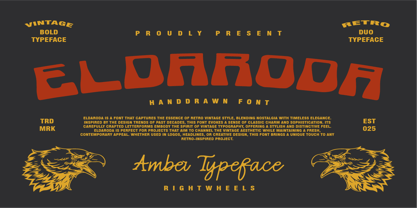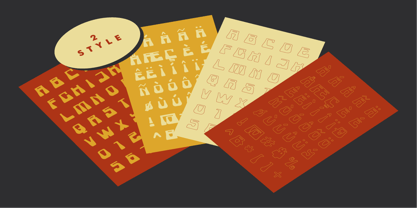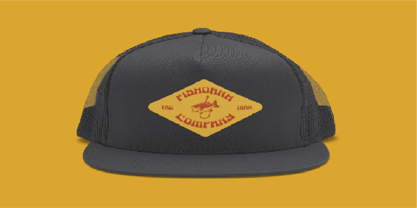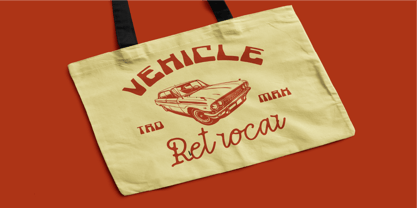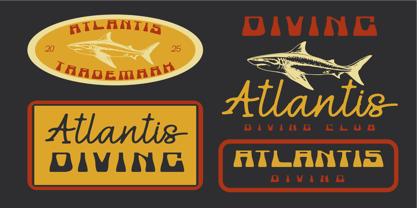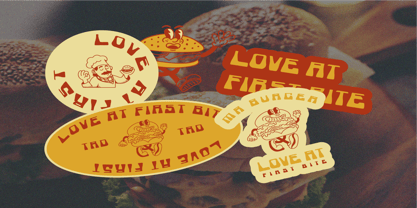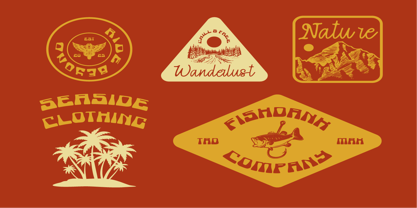
Eldaroda
von Rightwheels
Die Schriftfamilie Eldaroda wurde von entworfen und von Rightwheels veröffentlicht. Eldaroda enthält 1 Stile. Mehr über diese Familie
Eldaroda is a font that captures the essence of retro vintage style, blending nostalgia with timeless elegance. Inspired by the design trends of past decades, this font evokes a sense of classic charm and sophistication. Its carefully crafted letterforms embody the spirit of vintage typography, offering a stylish and distinctive feel. Eldaroda is perfect for projects that aim to channel the vintage aesthetic while maintaining a fresh, contemporary appeal. Whether used in logos, headlines, or creative design, this font brings a unique touch to any retro-inspired project.